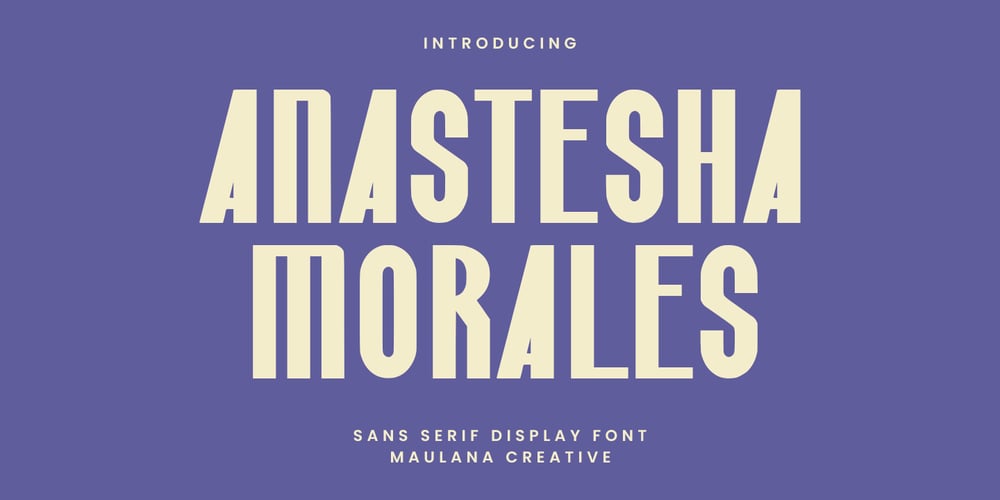
MC Anastesha Morales Font Family was designed by Gilang Maulana and published by Maulana Creative. MC Anastesha Morales contains 1 styles and family package options. Anastesha Morales sans serif font. Heavy stroke, fun character with a bit of ligatures. To give you an extra creative work. Anastesha Morales sans serif font support multilingual more than 100+ language. This font is good for logo design, Social media, Movie Titles, Books Titles, a short text even a long text letter and good for your secondary text font with script or serif. Make a stunning work with Anastesha Morales sans serif font.